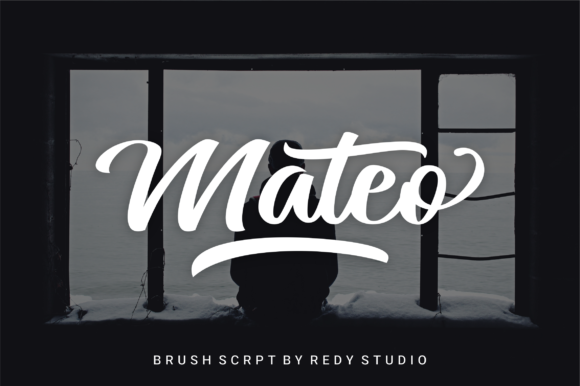
Discover Mateo Script Font, a captivating creation by RedyStudio, a script font family designed to ignite your creativity. Mateo's bold style is a stroke of genius, perfect for leaving a lasting impression on your creative projects.
Mateo's soft and clean brush strokes exude elegance and sophistication. This font is a visual masterpiece, adding a touch of charm and allure to your designs. Whether you're crafting logos, letterheads, posters, apparel designs, labels, or any other project, Mateo Script Font is your perfect companion.
With Mateo, you can unleash your imagination and create designs that captivate and inspire. Its bold lines command attention, while its soft edges lend a touch of grace. Mateo is more than just a font; it's an artistic tool that empowers you to make a statement.
As a script font, Mateo excels in conveying personality and emotion. Its flowing lines evoke a sense of movement and energy, drawing your audience into your creative vision. Mateo has the power to transform ordinary words into captivating messages that resonate with your target audience.
Mateo Script Font is not just another font; it's a key to unlocking your creative potential. Its bold style and soft touch make it an ideal choice for designers looking to make a lasting impression. Embrace the artistry of Mateo and elevate your creative projects to new heights.